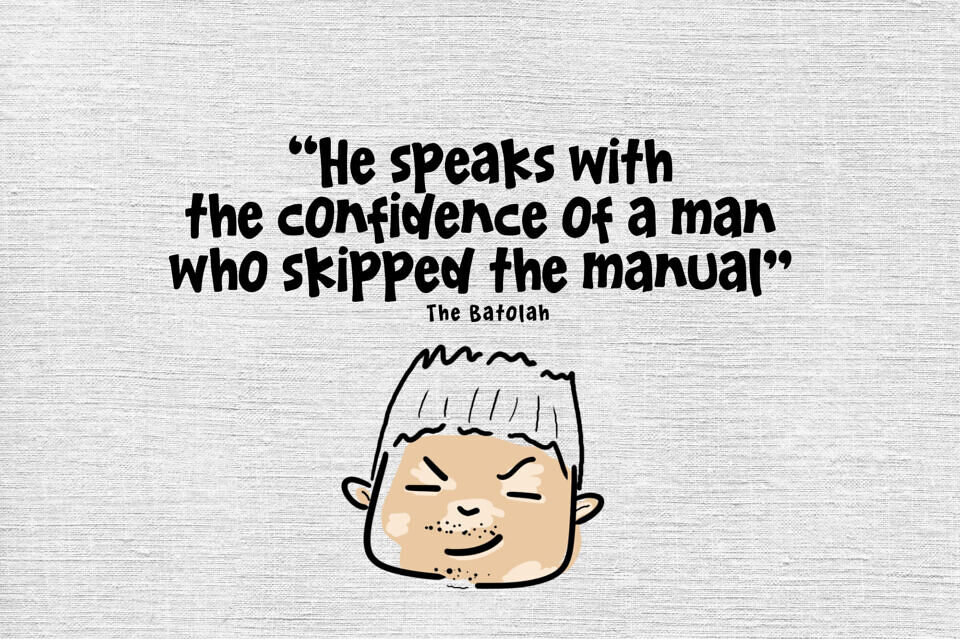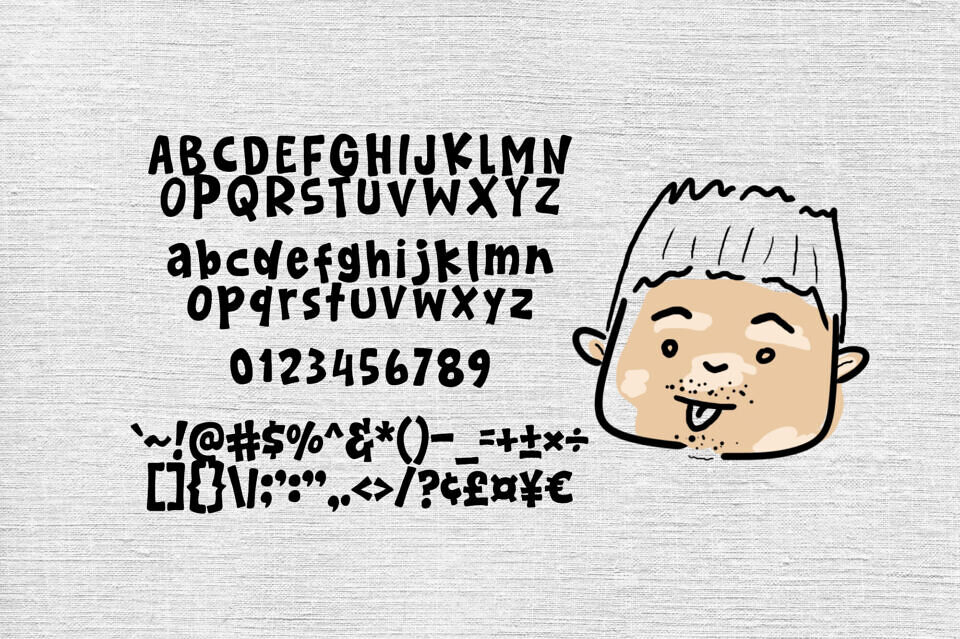
Batolah Font
Looking for a font that doesn’t take itself too seriously? Batolah is here to help! Inspired by casual doodles and bold marker sketches, this font adds a laid-back, handmade vibe to any design. Whether you’re making a birthday card or a cool t-shirt, Batolah makes it look effortless.